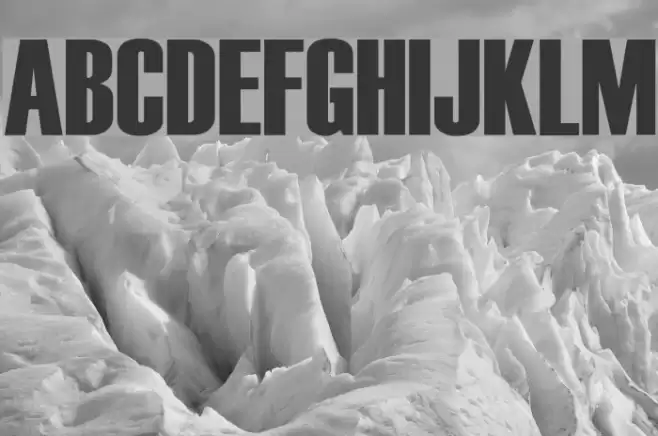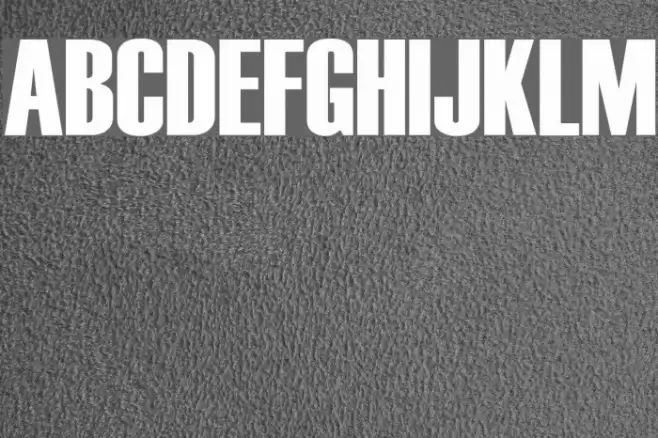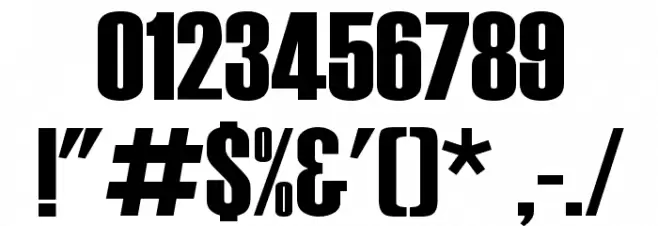
Haettenschweiler Font
Haettenschweiler Description
This font is a bold, condensed sans-serif typeface characterized by its strong, impactful presence. The letters are tightly spaced, creating a compact and powerful look. The strokes are thick and uniform, providing a high contrast that enhances readability and visual impact. Its design is straightforward and modern, making it suitable for attention-grabbing headlines and titles. The uppercase and lowercase letters maintain a consistent style, with the uppercase being slightly taller and more prominent. The numerals and special characters are designed to match the boldness and clarity of the alphabet, ensuring a cohesive appearance across all text elements.
A bold, condensed sans-serif font with high contrast and tight spacing from Uncategorized fonts.
- Proposed Projects: Ideal for headlines, posters, advertisements, and any design requiring a strong visual impact.
- Width: Condensed
- Character Spacing: Tight
- Contrast: High